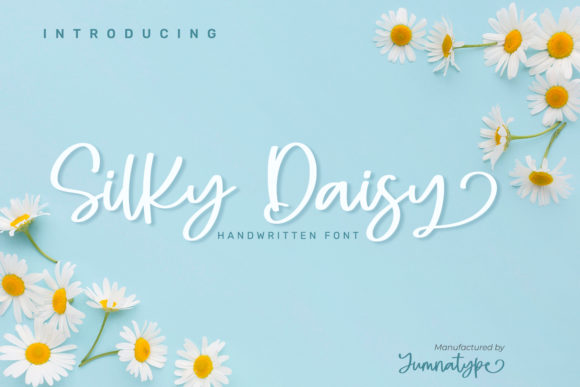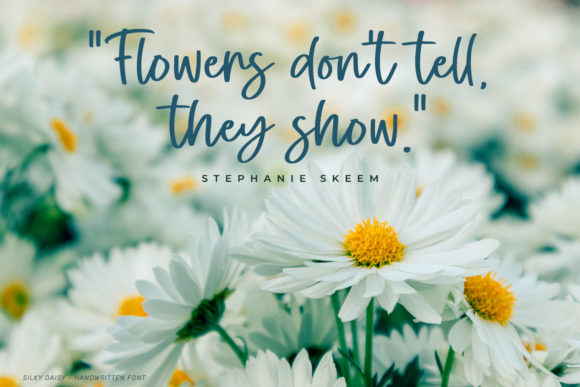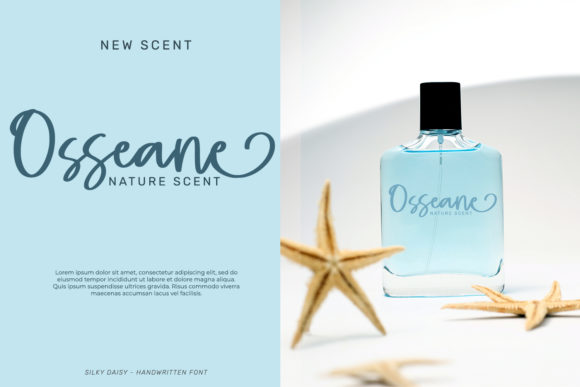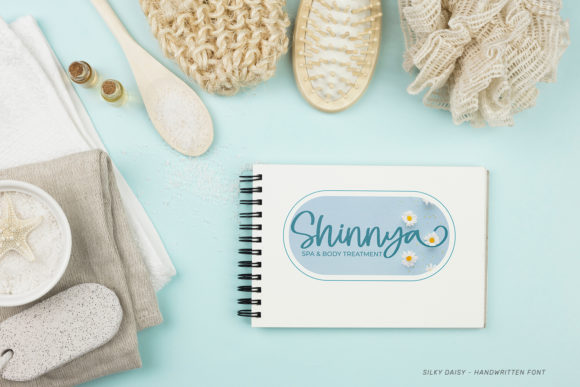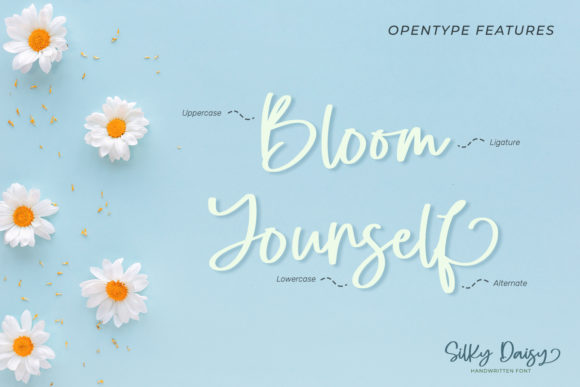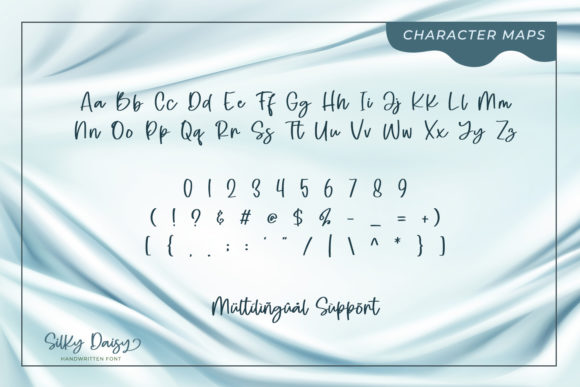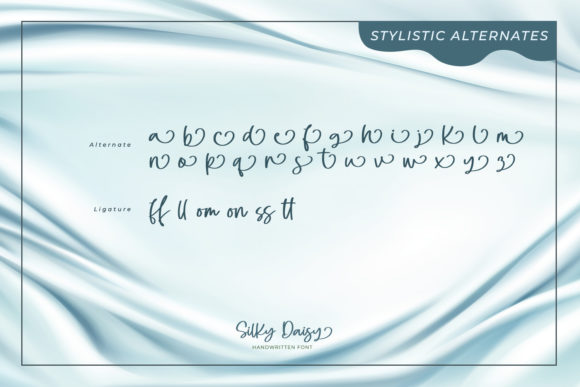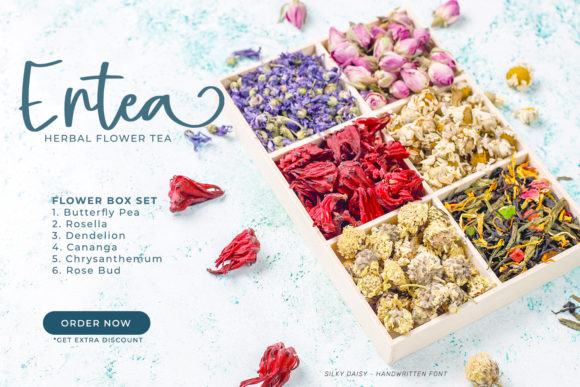
Silky Daisy Font
About Silky Daisy Font
Silky Daisy is a delicate and cute handwritten font. Natural and stylish, this font will be incredibly adept for a variety of designs, both formal and informal.